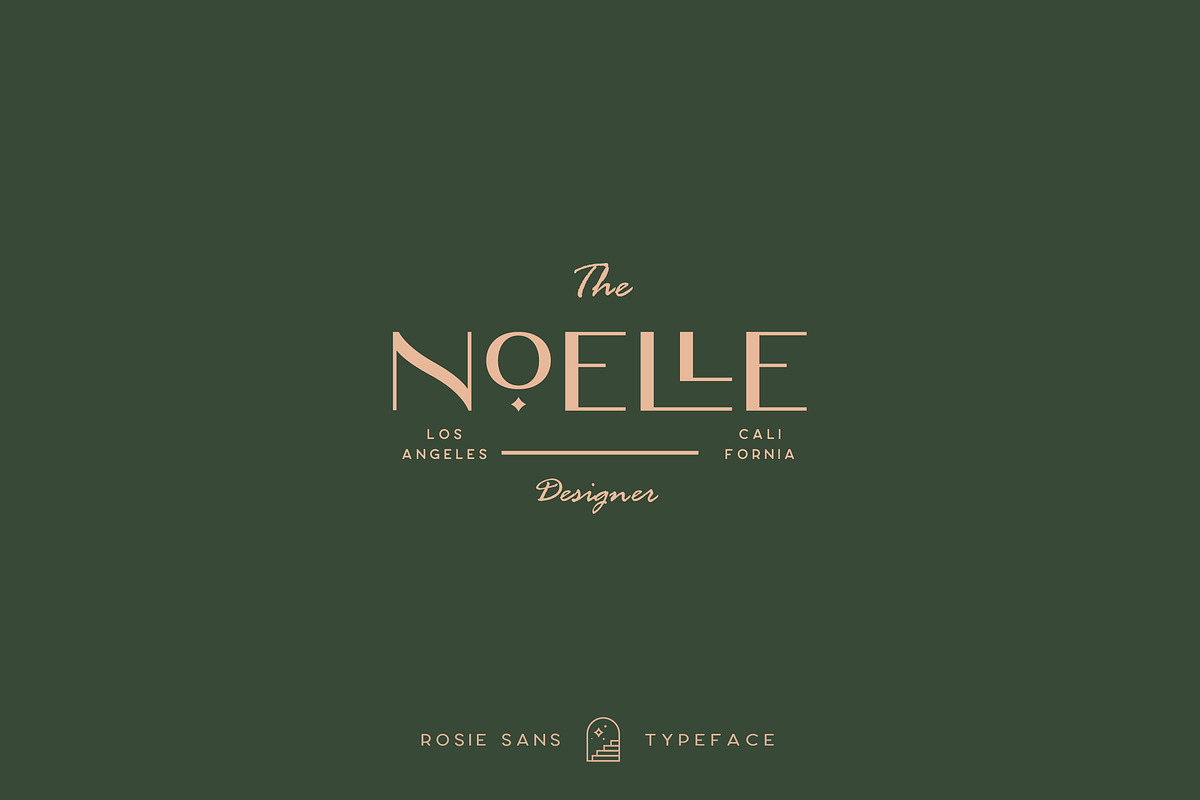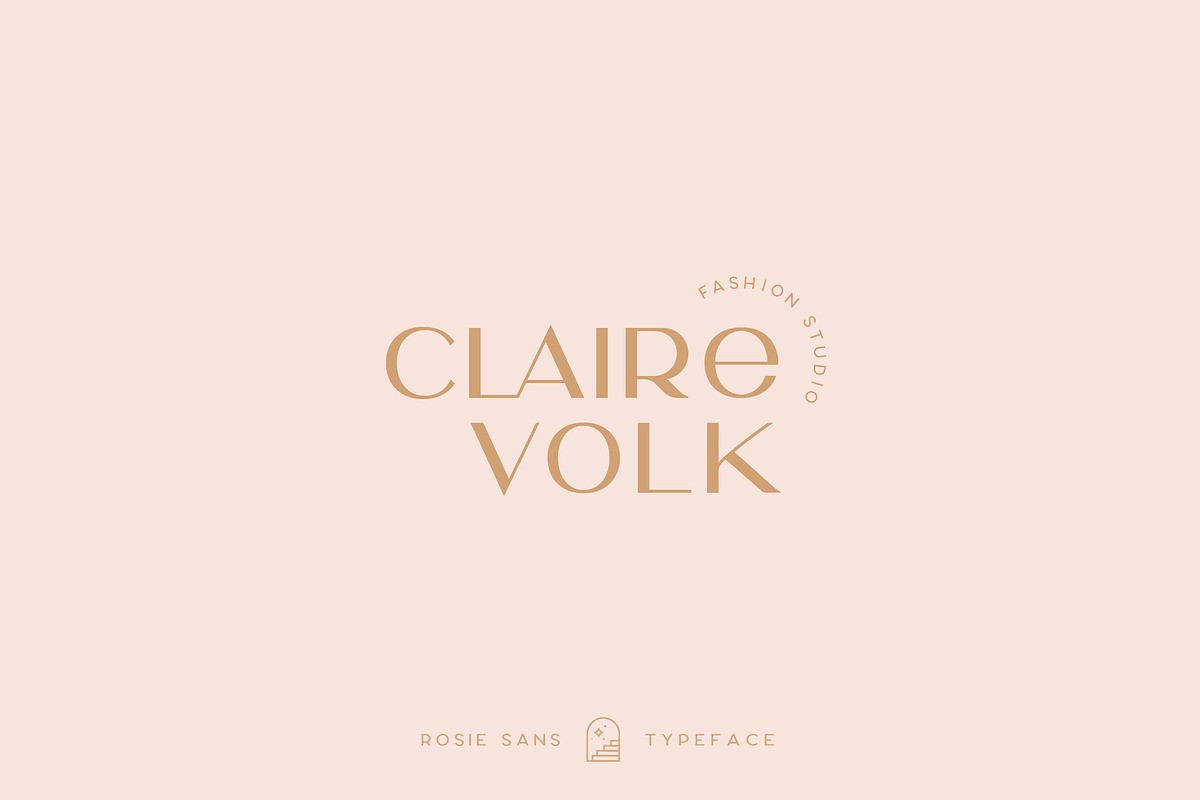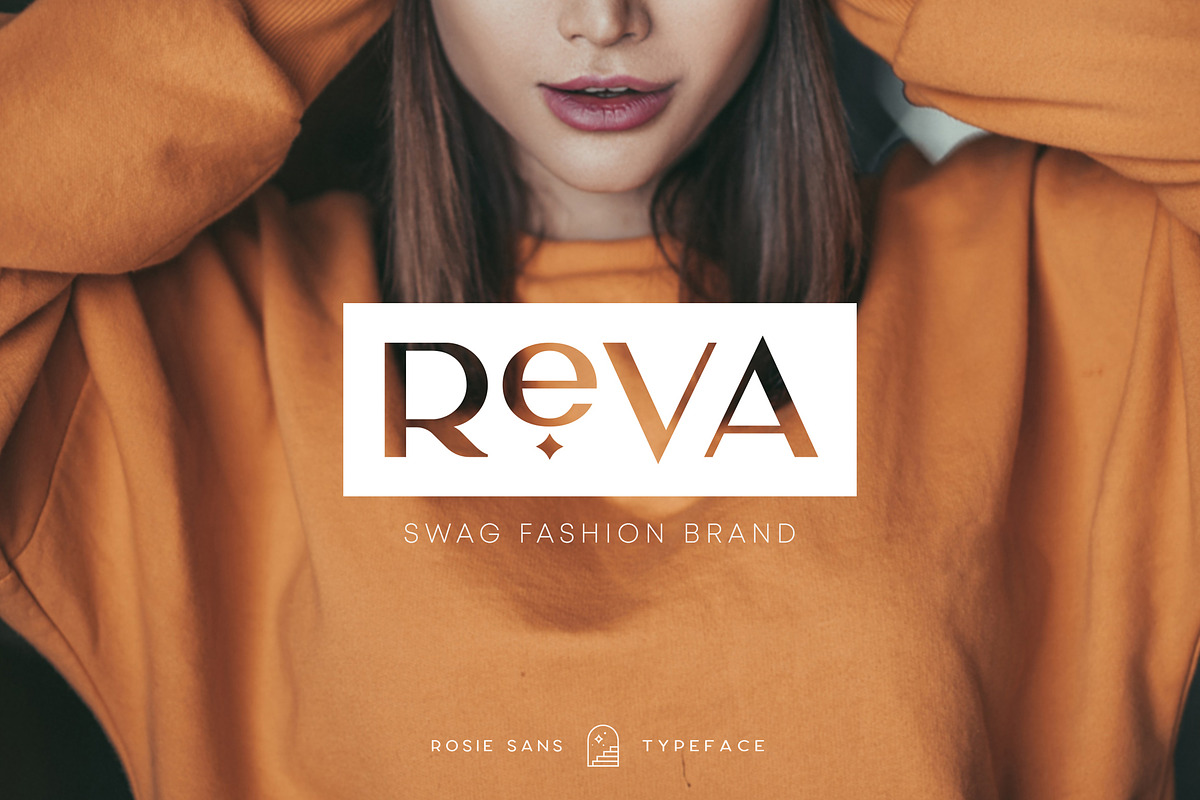
Rosie is a gorgeous modern sans serif with bold, clean lines and a variety of stylistic alternates. Its simplicity and elegance make it perfect for logos, headlines, posters, packaging, and more. With three different weights, Rosie offers versatility and creative flexibility, allowing for unique and dynamic designs.
- 3 font weights for added variety
- All caps design for strong visual impact
- Stylistic alternates & ligatures for customization
- Numerals & punctuation included
- Accented characters for multilingual support